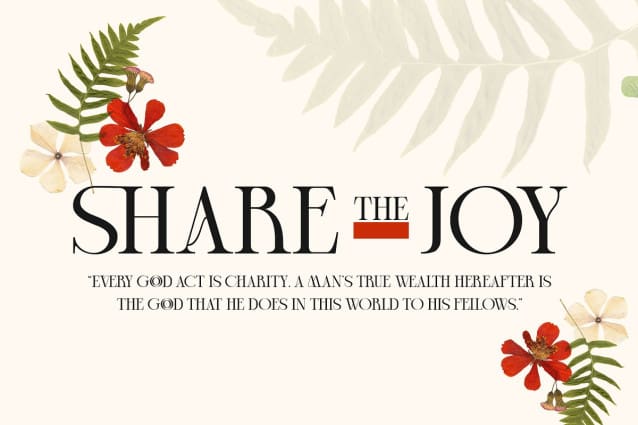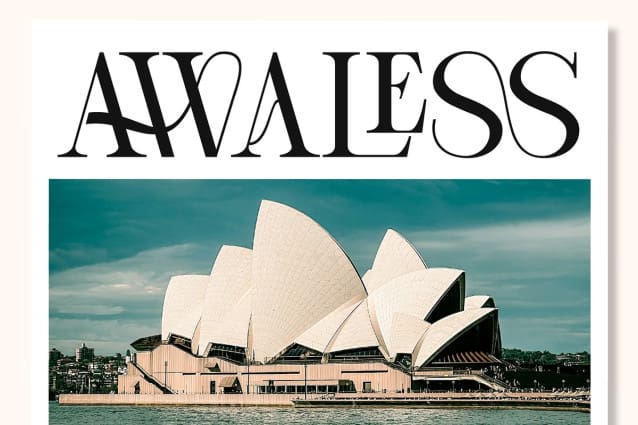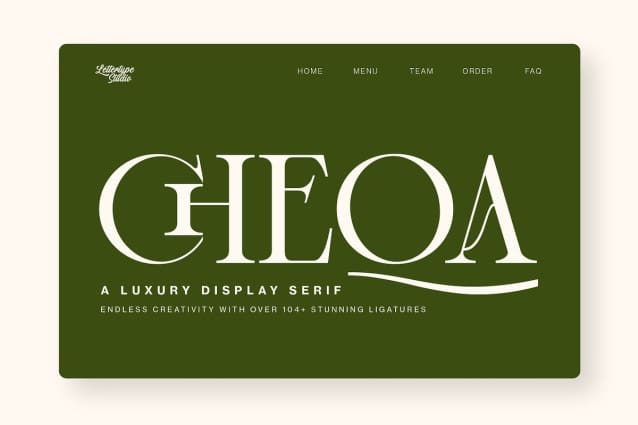
Cheqa Font
Cheqa Font is a Luxury and elegant chic serif font with a classic style inspired by 18th-century typography. Perfect for sophisticated branding, editorial design, web typography, and more. These fonts offer timeless appeal with clean lines, geometric and luxurious details, ensuring your projects stand out with elegance and style. Ideal for designers seeking versatility and refinement in their typography choices.
Cheqa font offering multiple styles and multilingual support, elevates your digital and print creations with a unique modern and vintage flair. This font works in large and small sizes and includes 18 styles normal & italic. Featuring 104+ unique & stunning ligatures, multilingual support, and various weights.